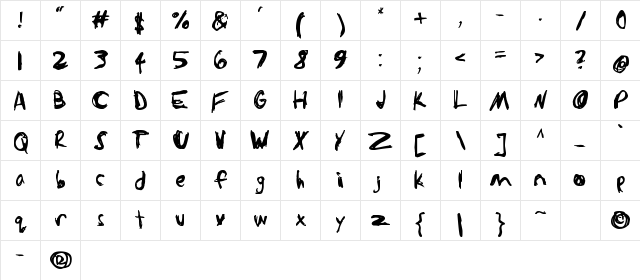
Sketchathon Regular
Design Context for Sketchathon Typeface
Sketchathon is a composed and adaptable typeface that performs quietly and consistently across a wide range of design contexts.